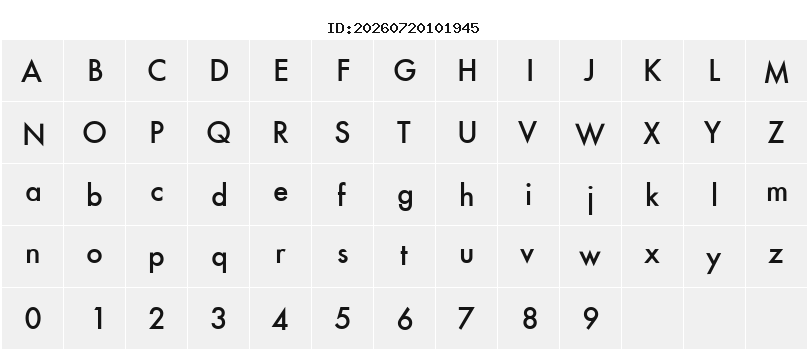
About Fuschia Medium.ttf
Fuschia Medium.ttf is a modern, elegant sans-serif font designed for ultimate readability and visual harmony. Perfect for branding, headlines, web design, and print materials.